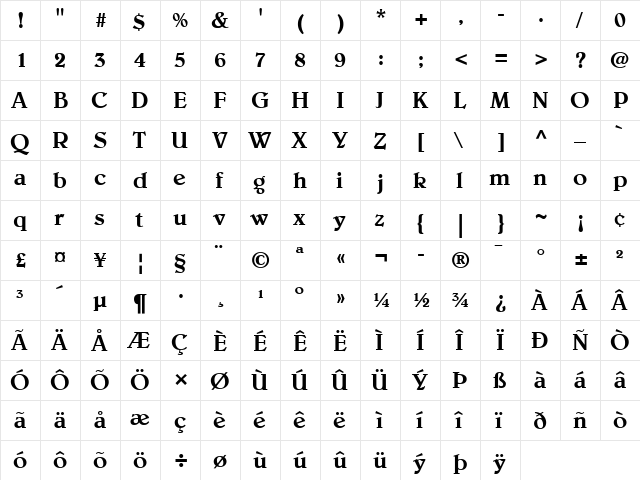
Belwe LT Medium Regular Font Preview
Belwe LT Medium Regular
Belwe LT Medium Regular Font Details
Design Context for Belwe LT Medium Typeface
Belwe LT Medium takes a measured approach to typography — its balanced proportions and neutral character make it a reliable workhorse for both digital and print work. Its slender proportions lend an understated elegance to any composition.